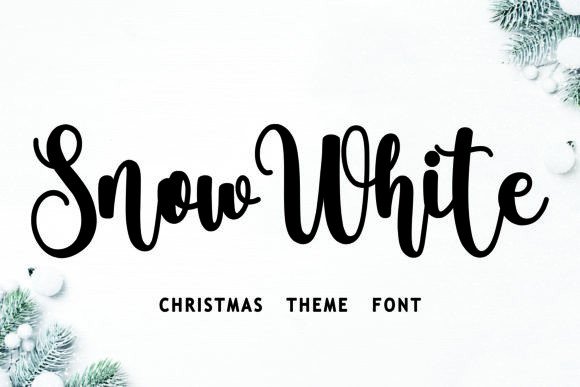
Introducing the enchanting "Snow White" font, a delightful script that captures the essence of the holiday season and the world of crafting and embroidery. Created by QueenCraft, this font is perfect for those looking to add a touch of whimsy to their designs.
With its delicate and whimsical strokes, the "Snow White" font brings to mind the festive spirit of Christmas and New Year. Each letter is crafted like a beautifully handcrafted ornament, adorned with playful curls and swirls reminiscent of decorative holiday motifs. It's like wrapping yourself in a cozy, handmade holiday quilt.
Not only does this font exude warmth and familiarity, but it also adds a sense of celebration to your designs. The lowercase letters maintain a uniform height, ensuring legibility and a seamless flow between characters. On the other hand, the uppercase letters are slightly larger, capturing the eye's attention with their inviting charm.
If you're in search of the perfect font for holiday-themed designs, greeting cards, or crafting projects, "Snow White" is the ideal choice. It effortlessly integrates the spirit of Christmas and New Year with the heartwarming artistry of handmade crafts. It's like bringing the joyous traditions of the season to life through your creative projects.
Embrace the magic of the holidays and the art of crafting and embroidery with "Snow White." This font will elevate your designs, making them stand out and captivate your audience. Whether you're creating wedding logos, invitations, or DIY projects, this font will add a touch of charm and creativity.
Indulge in the joy of crafting and embroidery, and let "Snow White" be your creative companion. Its captivating design and emotional appeal will make your projects truly unforgettable. Download the "Snow White" font today and let it weave its magic into your designs.
Remember, the holiday season is all about spreading joy and warmth. Let "Snow White" be your secret weapon in creating designs that evoke the spirit of the holidays and the art of crafting and embroidery. Don't miss out on this opportunity to make your projects shine.
Experience the magic of the "Snow White" font today and unlock a world of endless creativity and festive spirit.